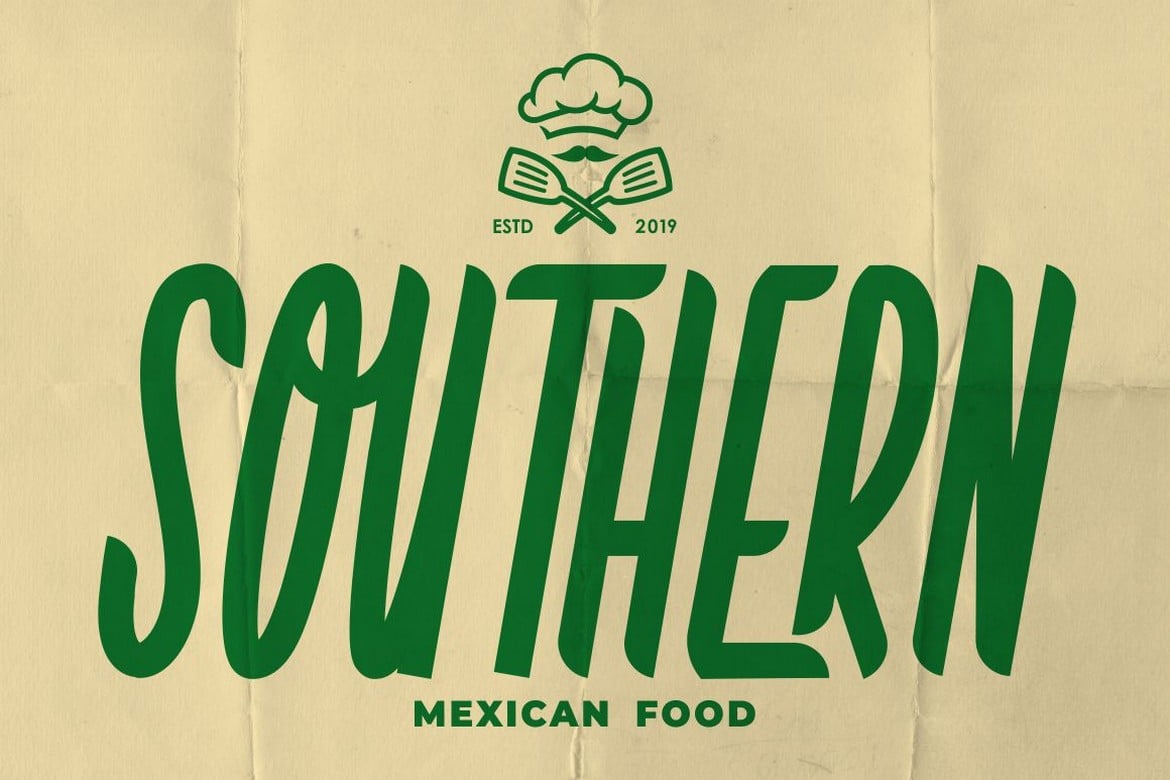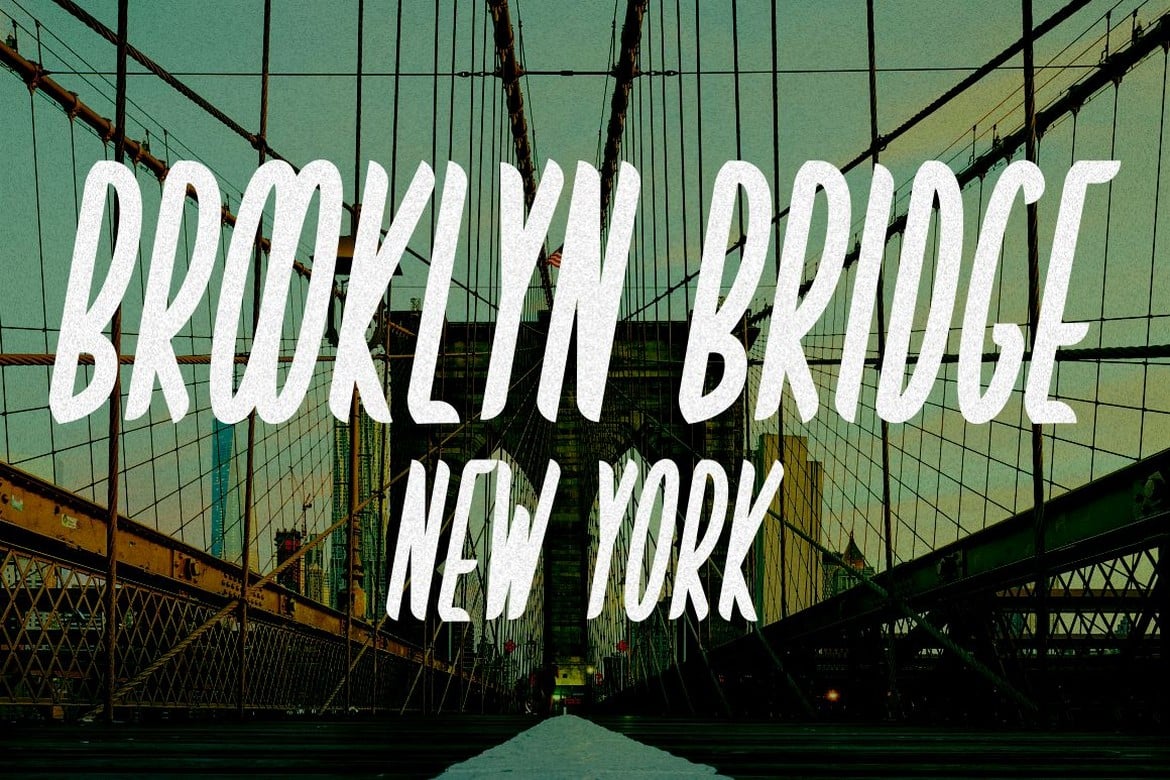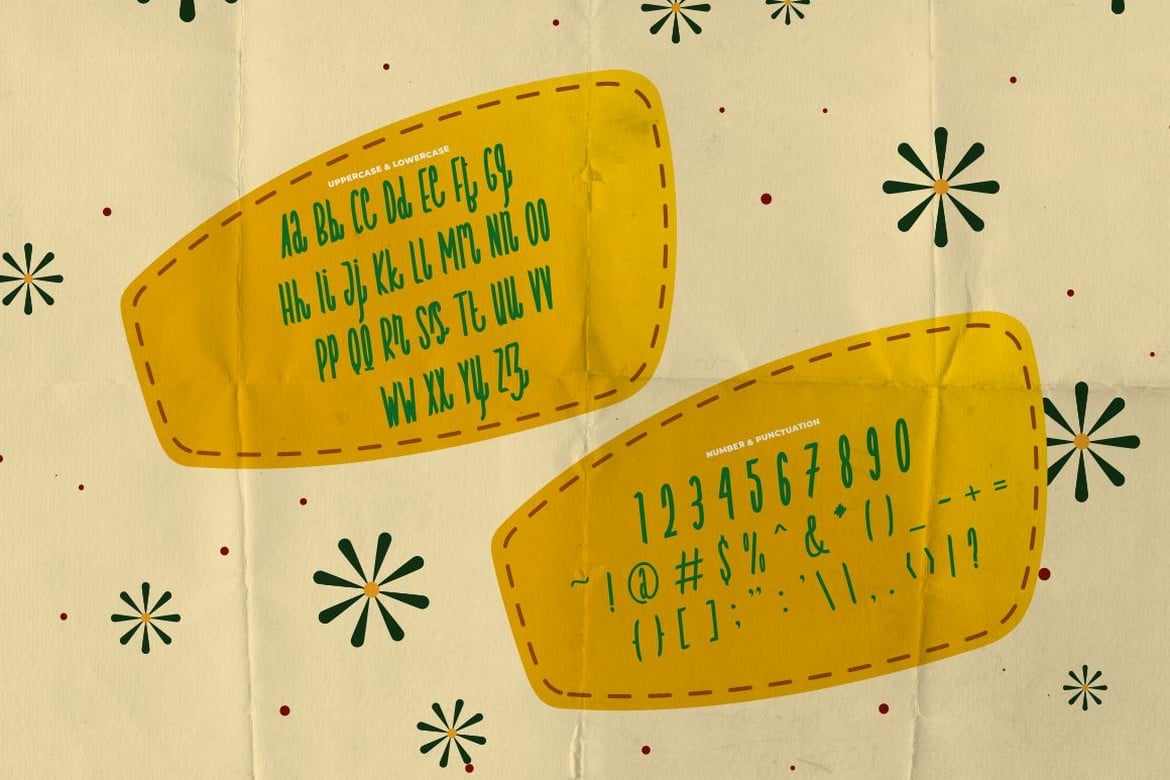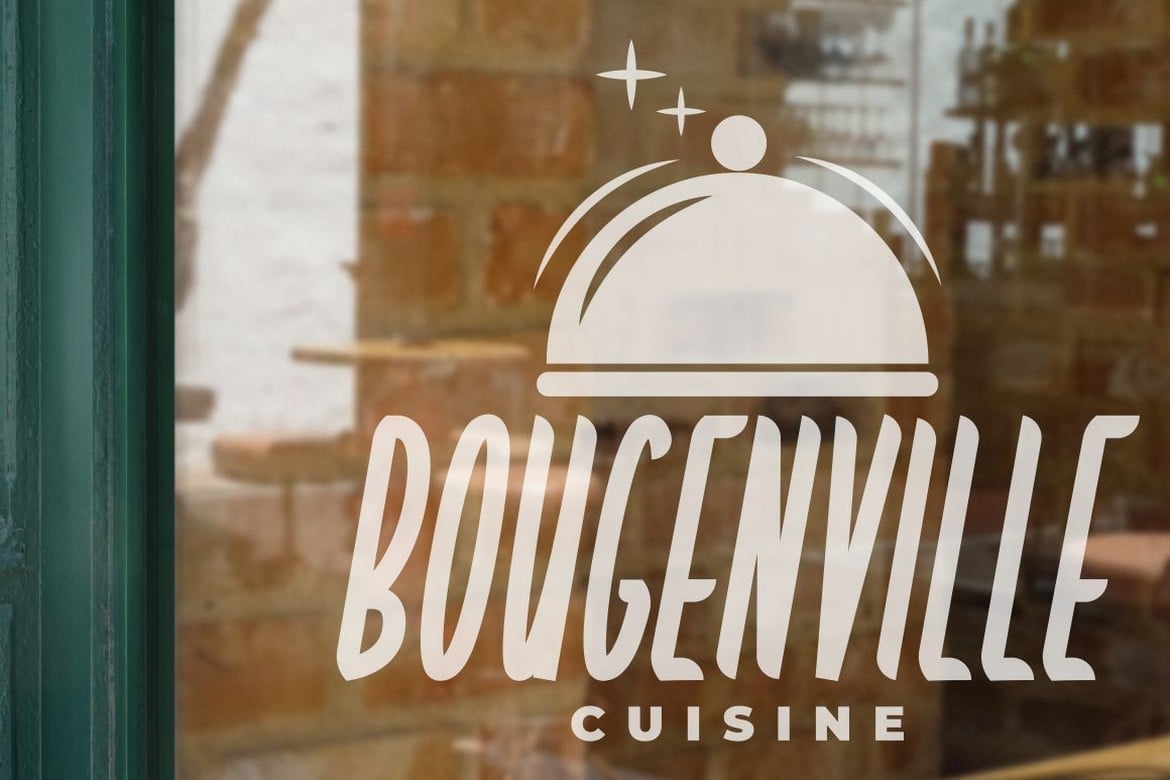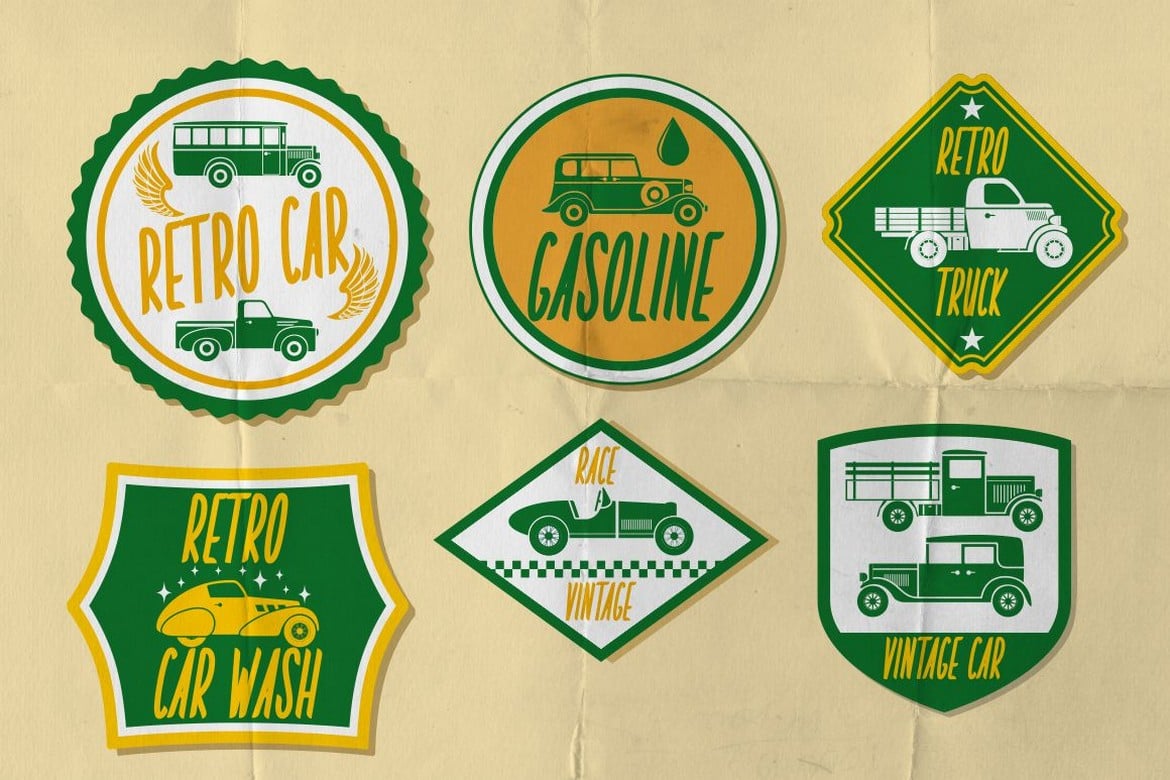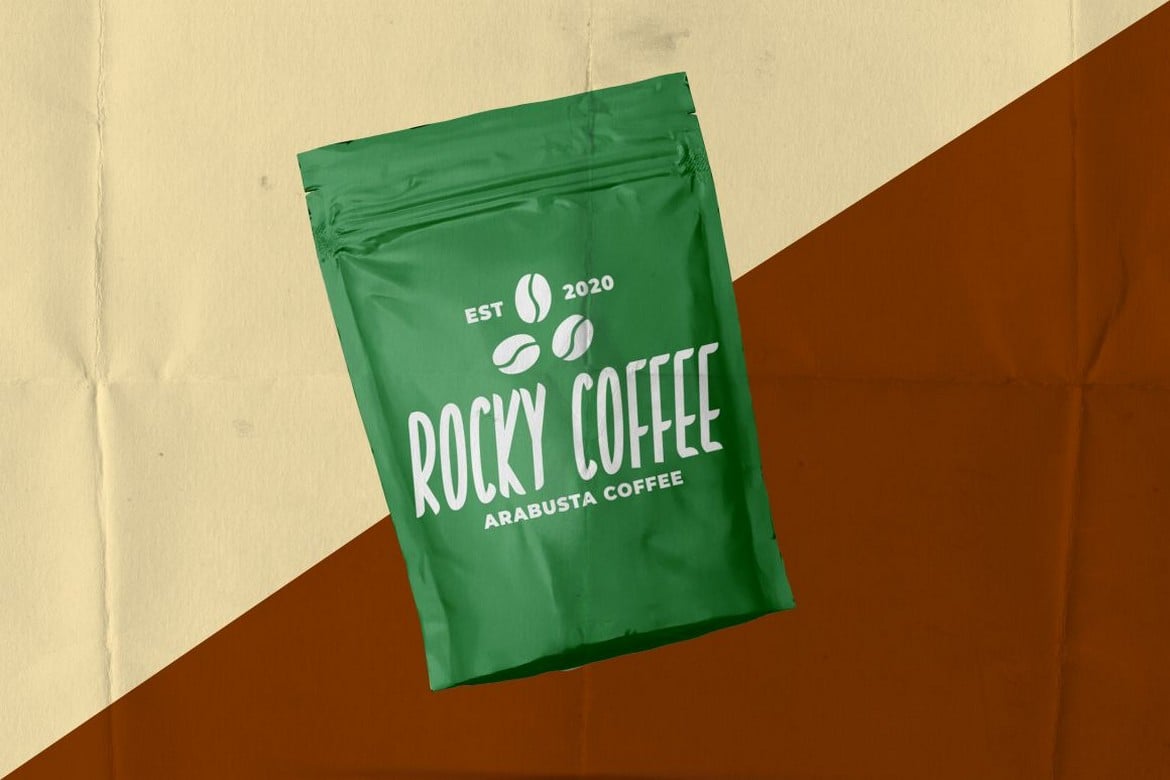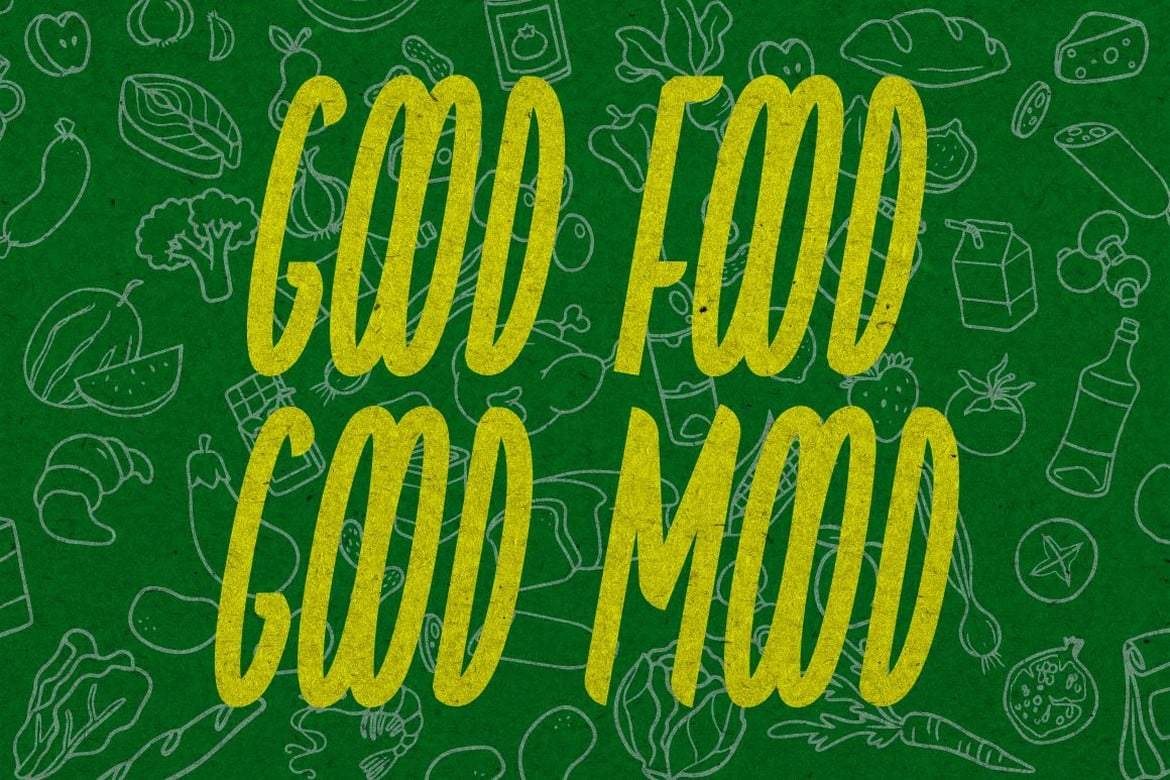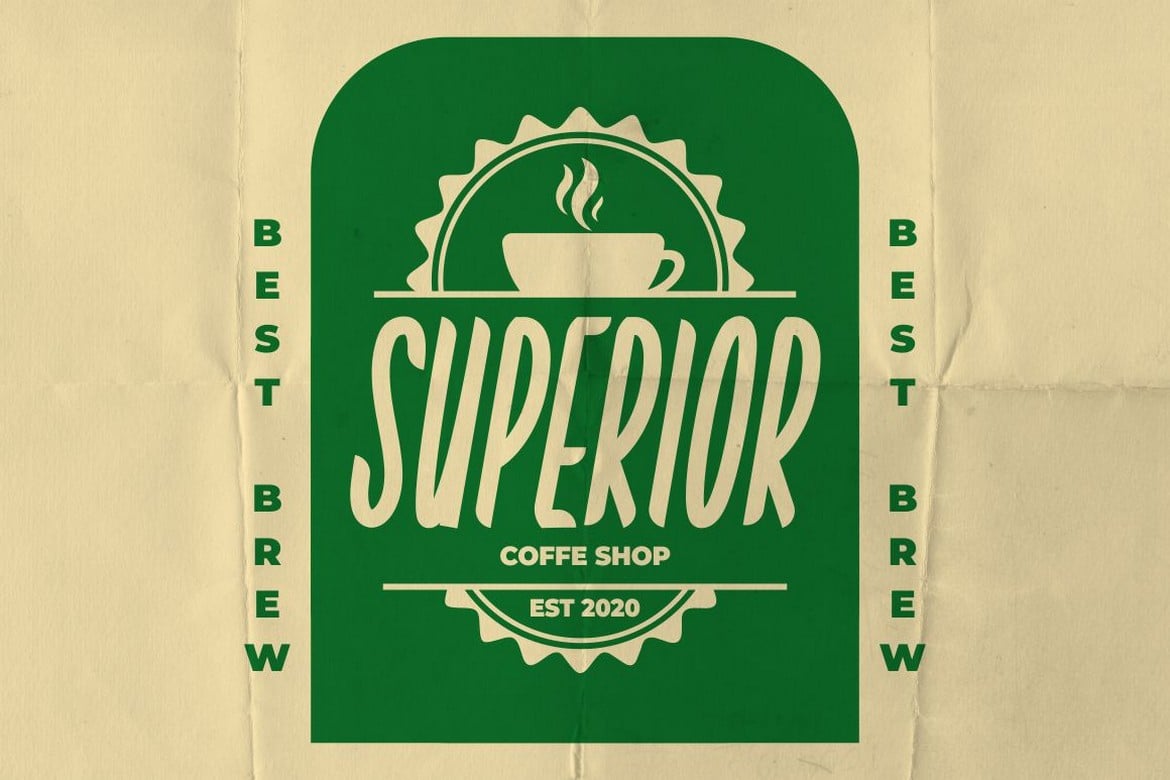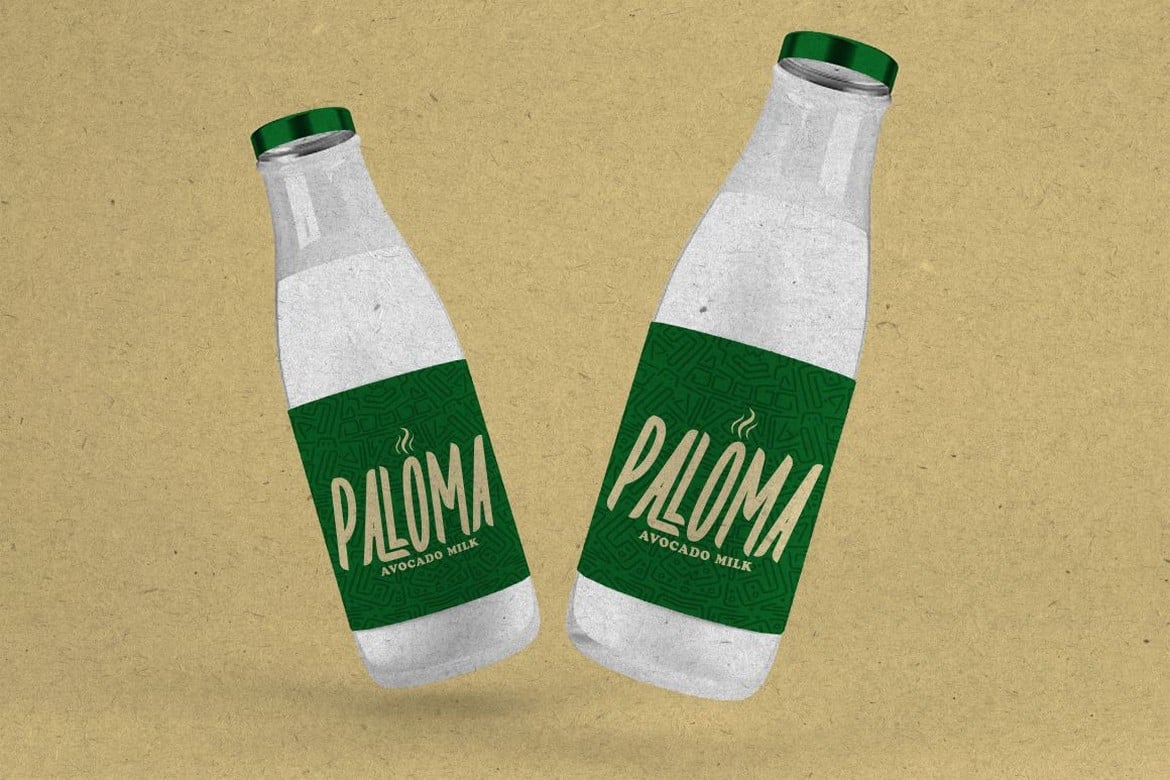
Country Foody – Condensed Retro Font
Country Foody – Condensed Retro Font. Country Foody inspired by mid-century print design. Country Foody is a family Sans Serif font designed with great condensed, this font is a tall and skinny font perfect for your home decor and craft designs with retro themes
Country Foody is a condensed retro sans that is perfect for story books, illustrations, comic books, posters, greeting cards, logos, branding, stickers, svg, crafting and all for display purposes.